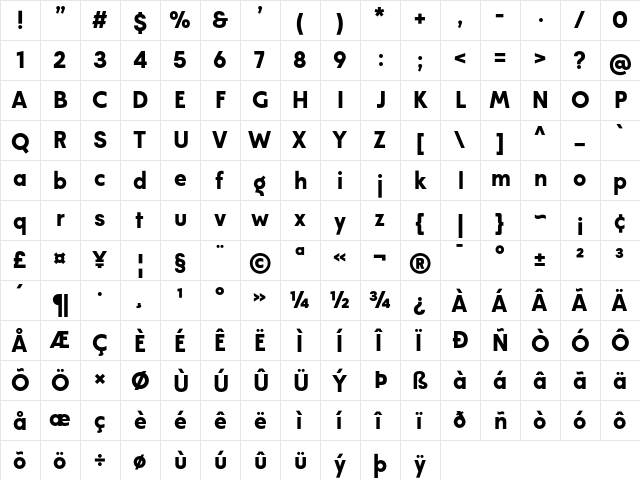
Modeco Trial Bold
| Designer | Eko Bimantara |
Design Context for Modeco Trial Typeface
Modeco Trial offers clean, dependable letterforms without strong stylistic allegiance, making it a practical choice for designers who need flexibility. Its bold stroke weight gives it real presence on the page.